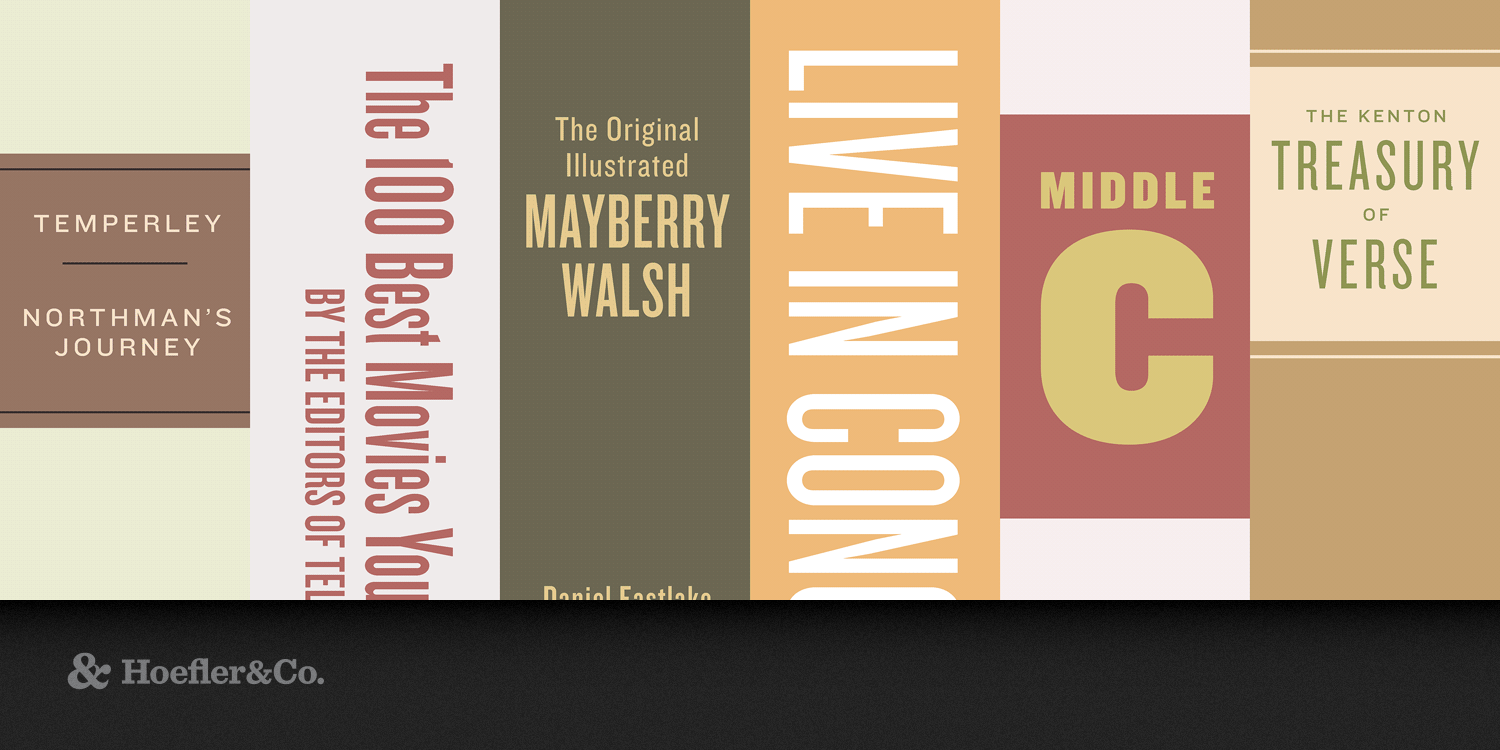
Knockout Font is perfect for sports team branding, boxing event promotions, athletic apparel designs, competition announcements, championship materials, and high-impact marketing campaigns. Its powerful character makes it ideal for fitness centers, martial arts studios, sports broadcasting, energy drink advertising, and any application requiring aggressive typography that conveys strength, determination, and competitive excellence.
Knockout Font is exciting because it delivers devastating visual impact through bold, muscular letterforms that pack the punch of championship-level design. Its commanding presence and athletic proportions evoke the intensity and power of competitive sports, making it perfect for brands seeking to project dominance, victory, and unstoppable energy. The font's fighter spirit instantly energizes any message with the raw power and determination of champions.
Knockout Font family includes championship-grade weight variations typically featuring multiple condensed and extended width options ranging from Ultra Light to Ultra Black. The family often incorporates athletic symbols, competitive characters, and specialized glyphs designed for sports applications, providing designers with comprehensive tools for creating powerful, victory-focused typographic compositions.